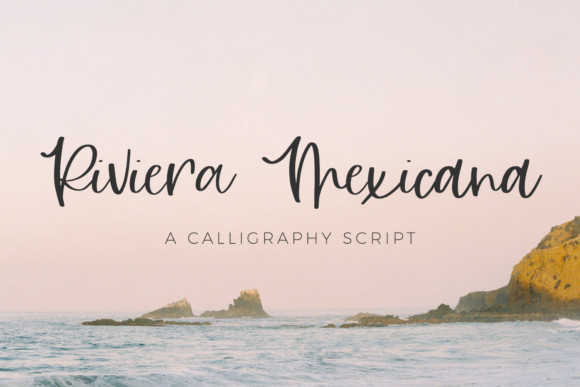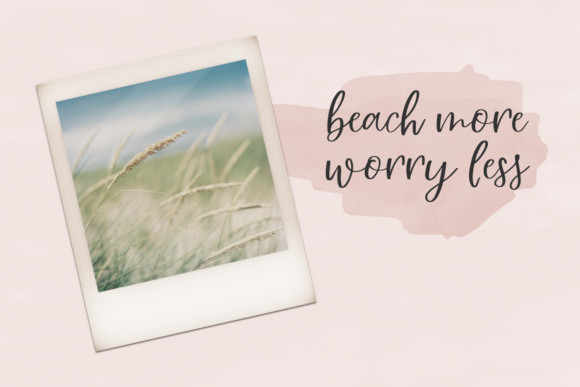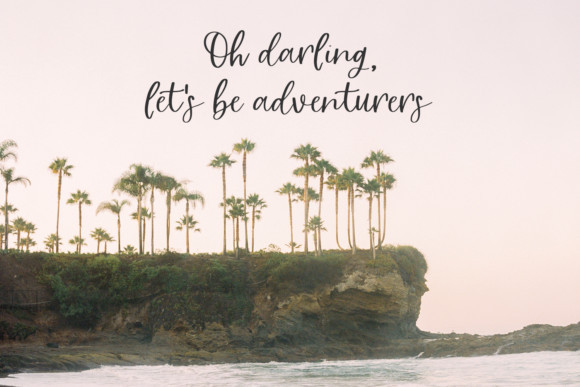
Riviera Mexicana Font
Riviera Mexicana FontRiviera Mexicana feels equally charming and elegant. It looks stunning on wedding invitations, thank you cards, quotes, greeting cards, logos, business cards and every other design which needs a handwritten touch.